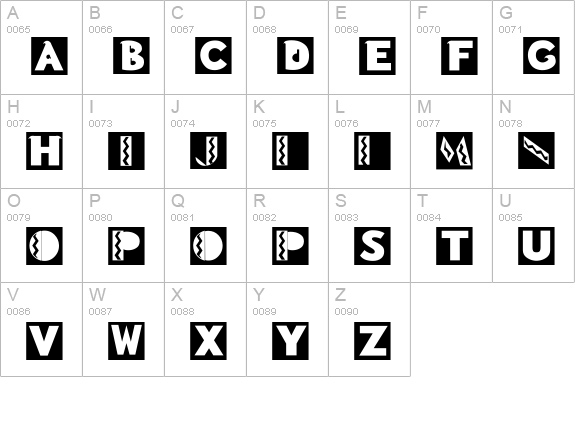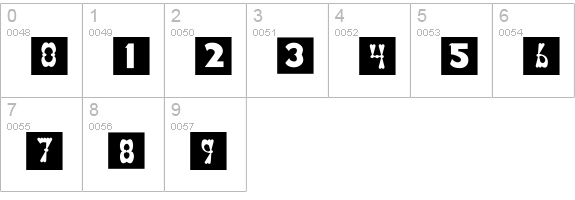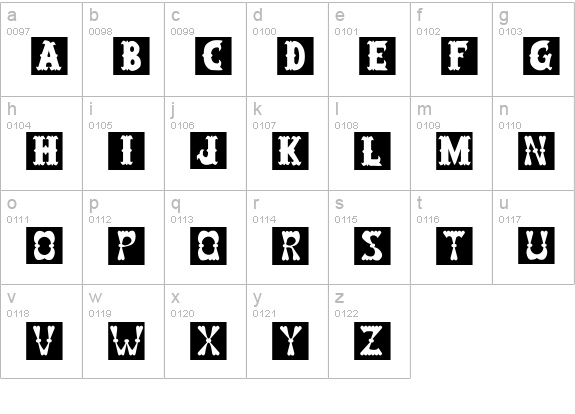
PCBlockBoy Font Details
Introducing PCBlockBoy font, the perfect fusion of contemporary design and boldness. This captivating typeface is sure to make a statement and add a touch of modernity to your creative projects. With its clean lines and geometric shapes, PCBlockBoy is a versatile font that can be used across various design applications. One of the best features of PCBlockBoy font is that it is available for free download at FontsMarket.com. This means that you can easily access this remarkable font and use it in your personal or commercial projects without any hassle. Whether you're designing a captivating logo, creating eye-catching posters, or crafting engaging social media graphics, PCBlockBoy font will elevate your designs and make them stand out from the crowd. PCBlockBoy font boasts a wide range of characters, including uppercase and lowercase letters, numbers, punctuation marks, and special symbols. This comprehensive set ensures that you have everything you need to create stunning typography that grabs attention and communicates your message effectively. Designed with usability in mind, PCBlockBoy font is easy to read even at smaller sizes, making it suitable for various applications. Its unique style and attention to detail make it a brilliant choice for branding, advertising, packaging, and more. Let PCBlockBoy font breathe life into your designs and watch as they come alive with its dynamic and captivating presence. So, why wait? Download PCBlockBoy font for free today at FontsMarket.com and experience the freedom to create compelling designs that leave a lasting impression. Unleash your creativity and explore the endless possibilities that this font offers. Don't miss out on this incredible opportunity to enhance your design projects with a font that is both visually appealing and freely accessible.